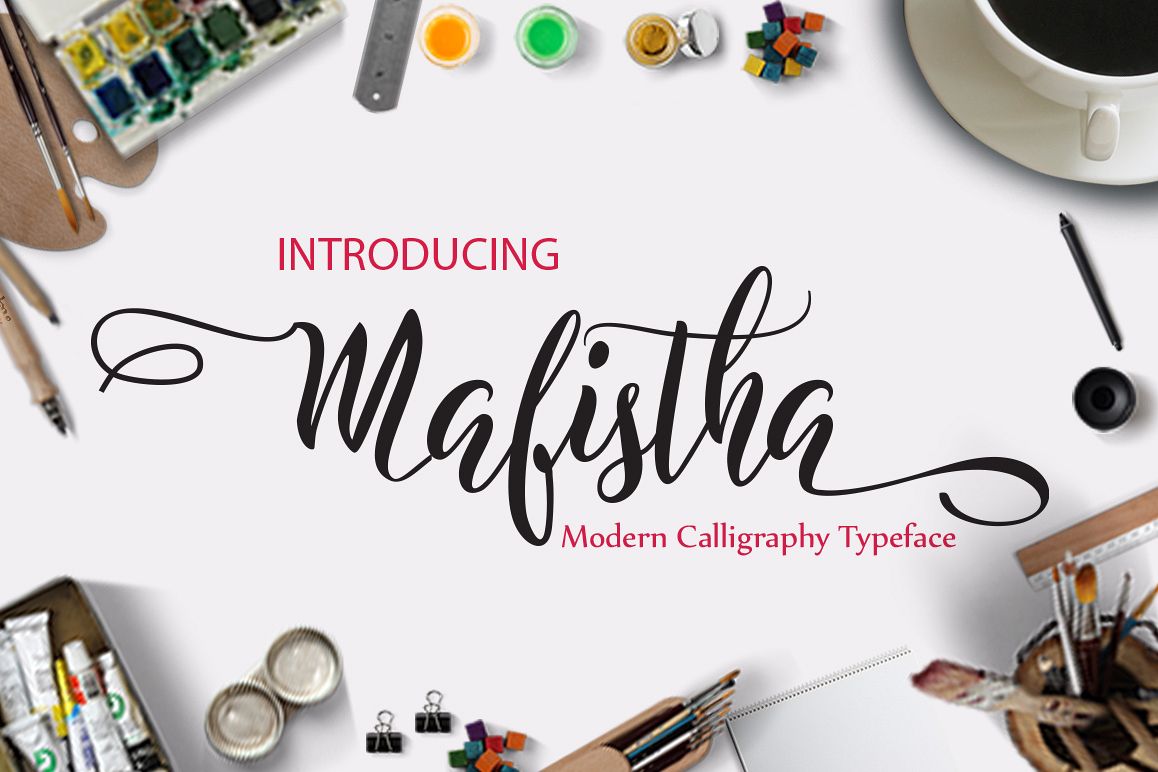
Mafistha Script
Mafistha
Mafistha scripts is a hand calligraphy, smooth, modern and clasik, calligraphy wavy, which was created to meet the needs of your next design project. Mafistha, Can used for various purposes. such as the title, signature, logo, correspondence, wedding invitations, letterhead, signage, labels, newsletters, posters, badges, etc.Mafistha features 459 glyphs and has given PUA unicode (specially coded fonts), can be accessed easily with the character map, can be accessed in full by the lovers of letters or artisans to increase career in the design world.The Features of this fonts is: Standart ligatures, Stylistic Sets and swashes.Files included:Mafistha.otfMafistha.ttfMafistha Web Fonts (eot, svg, woff)Features Basic Latin A-Z and a-z Numbers Symbols.